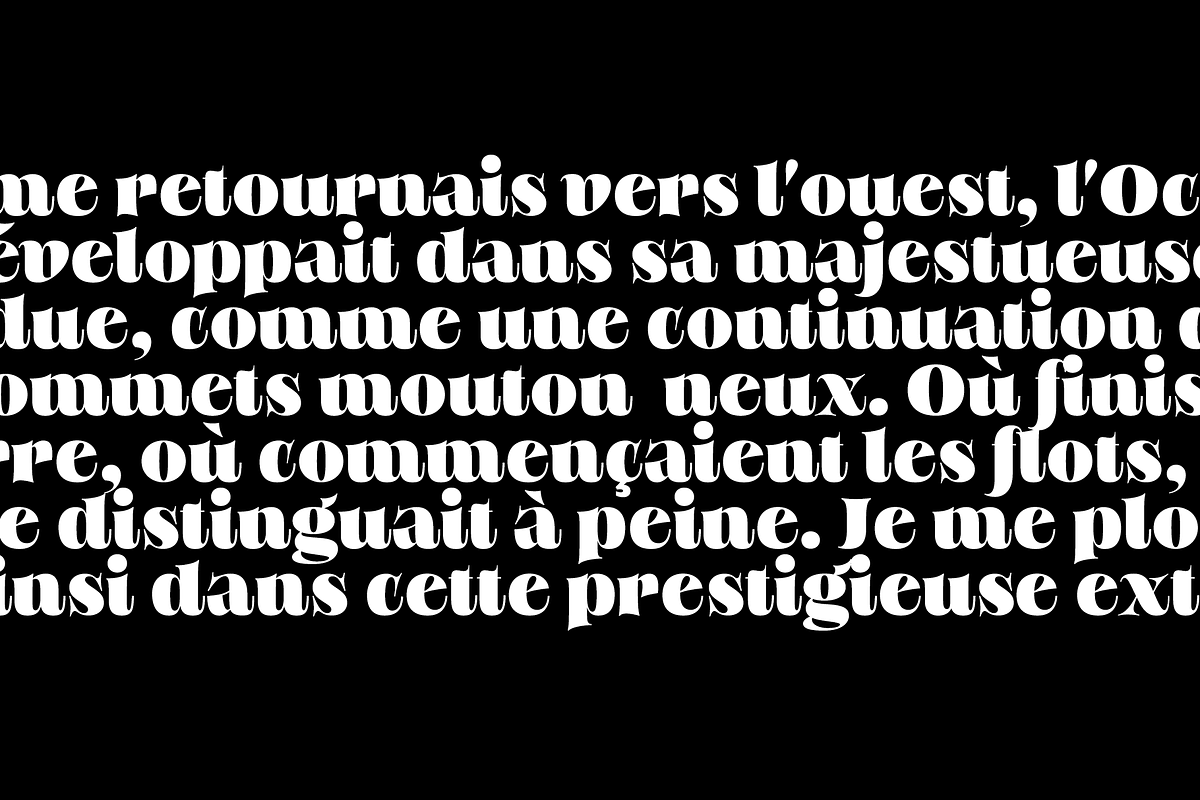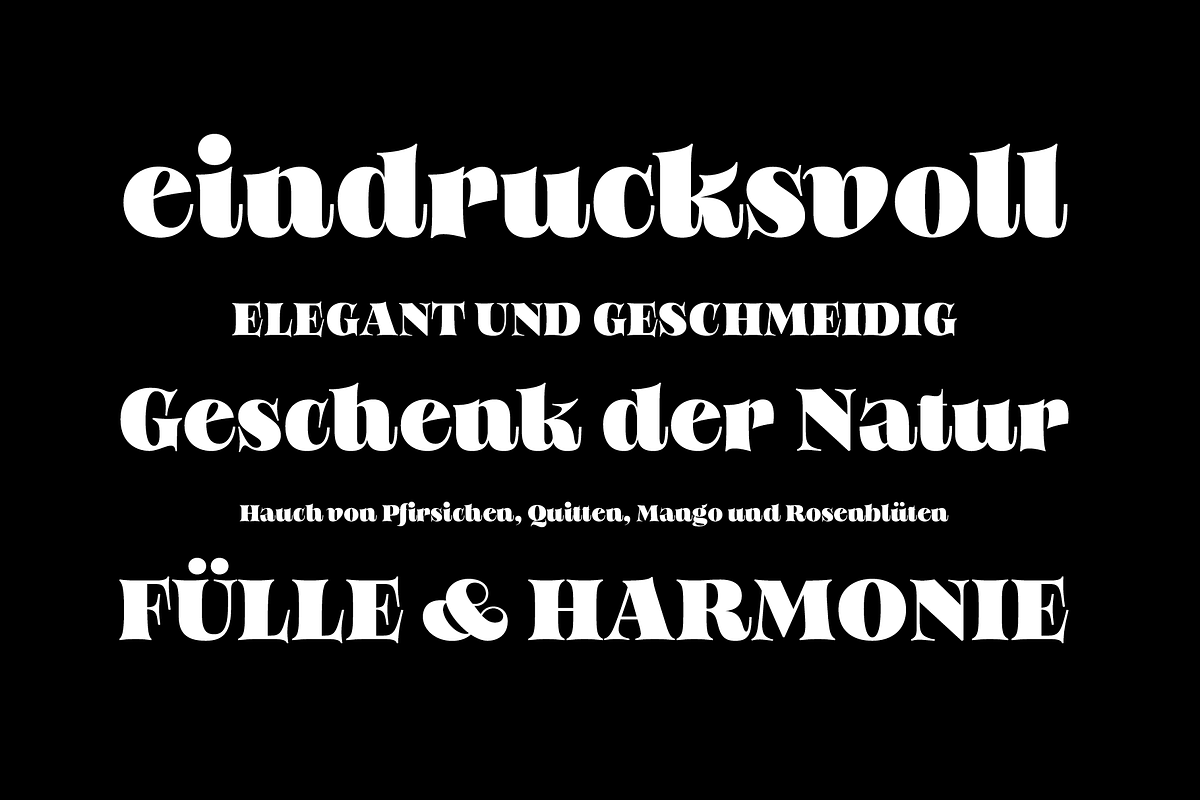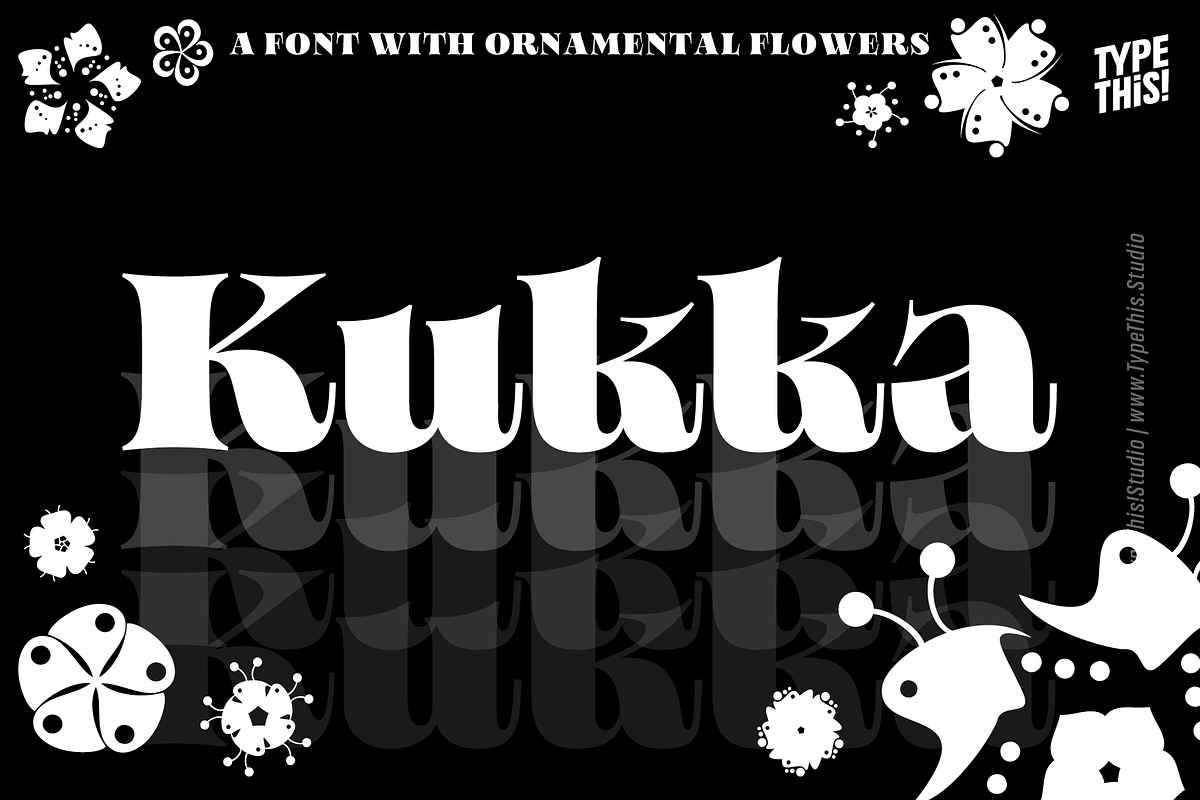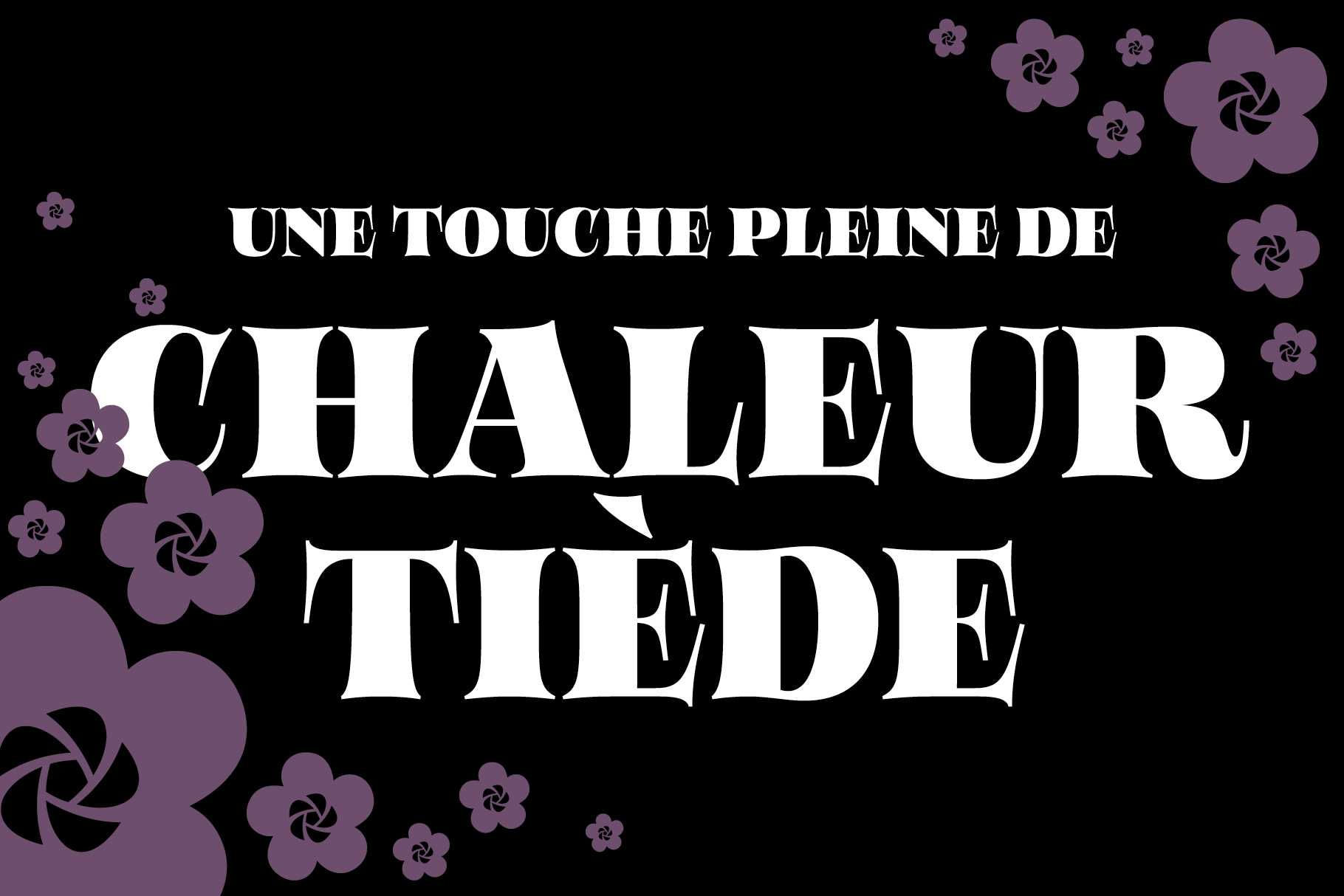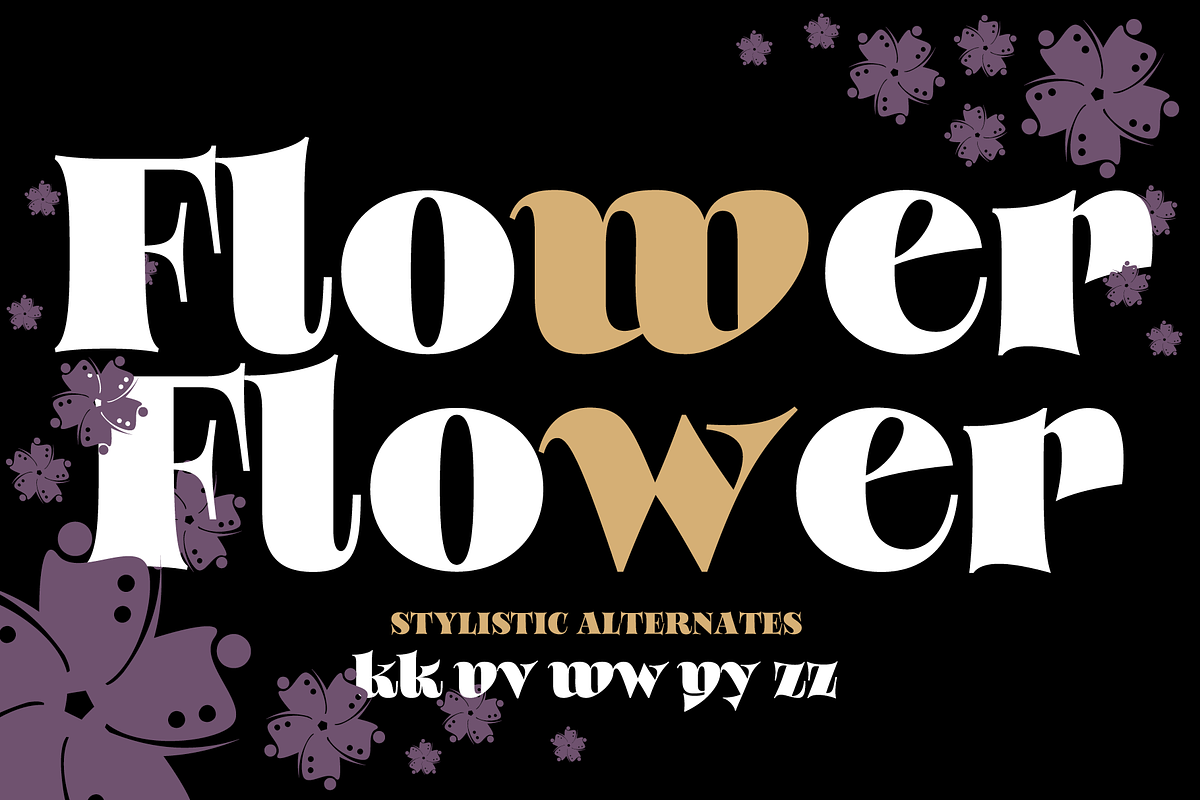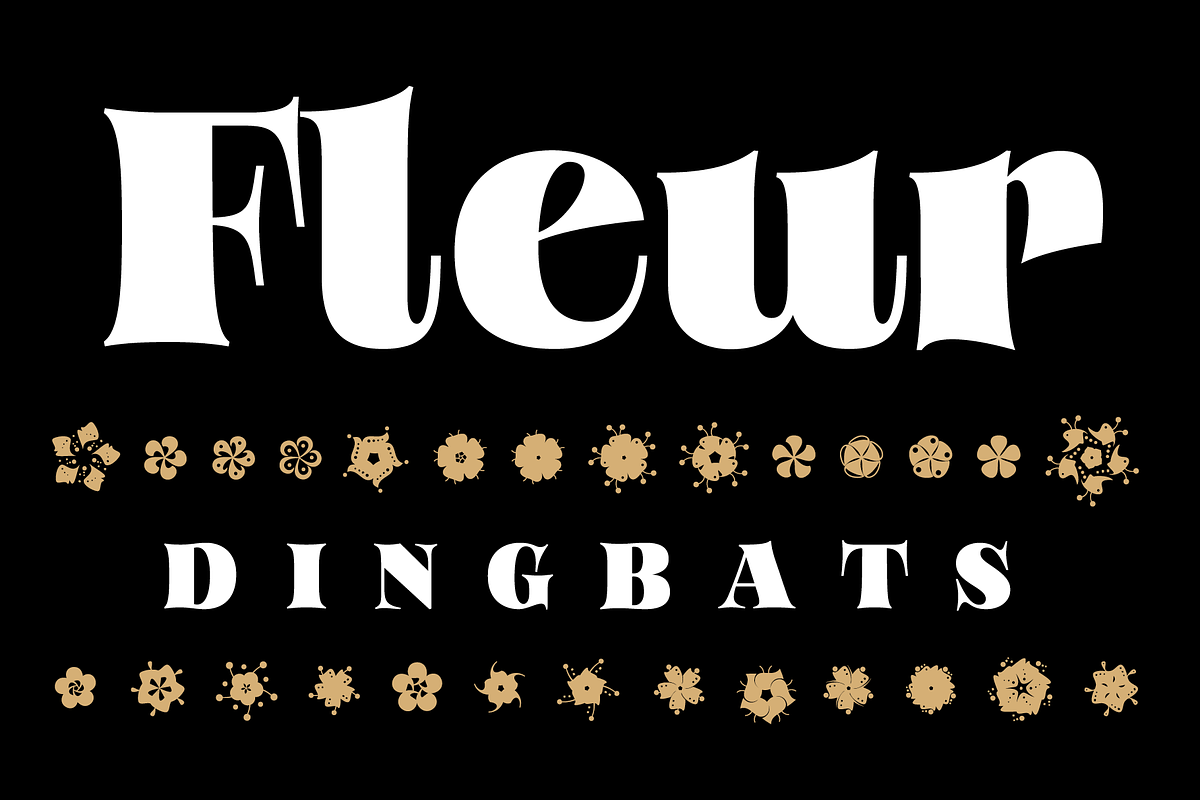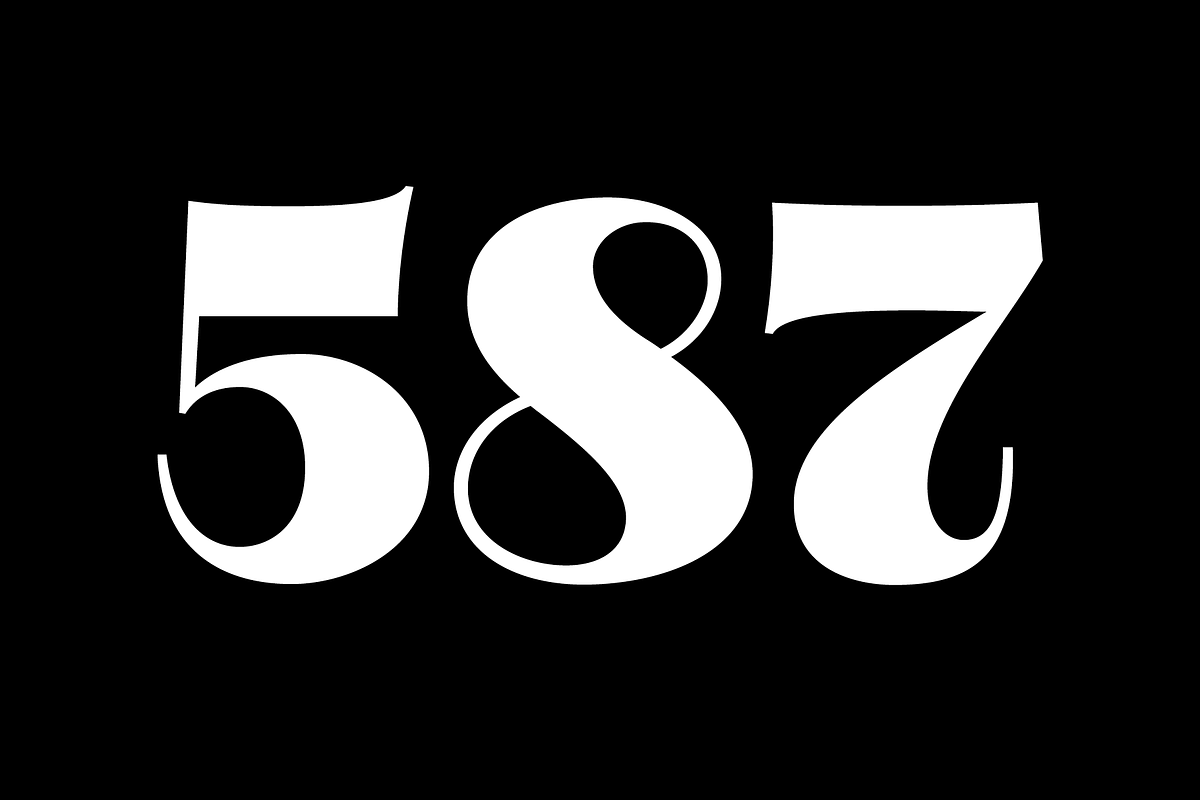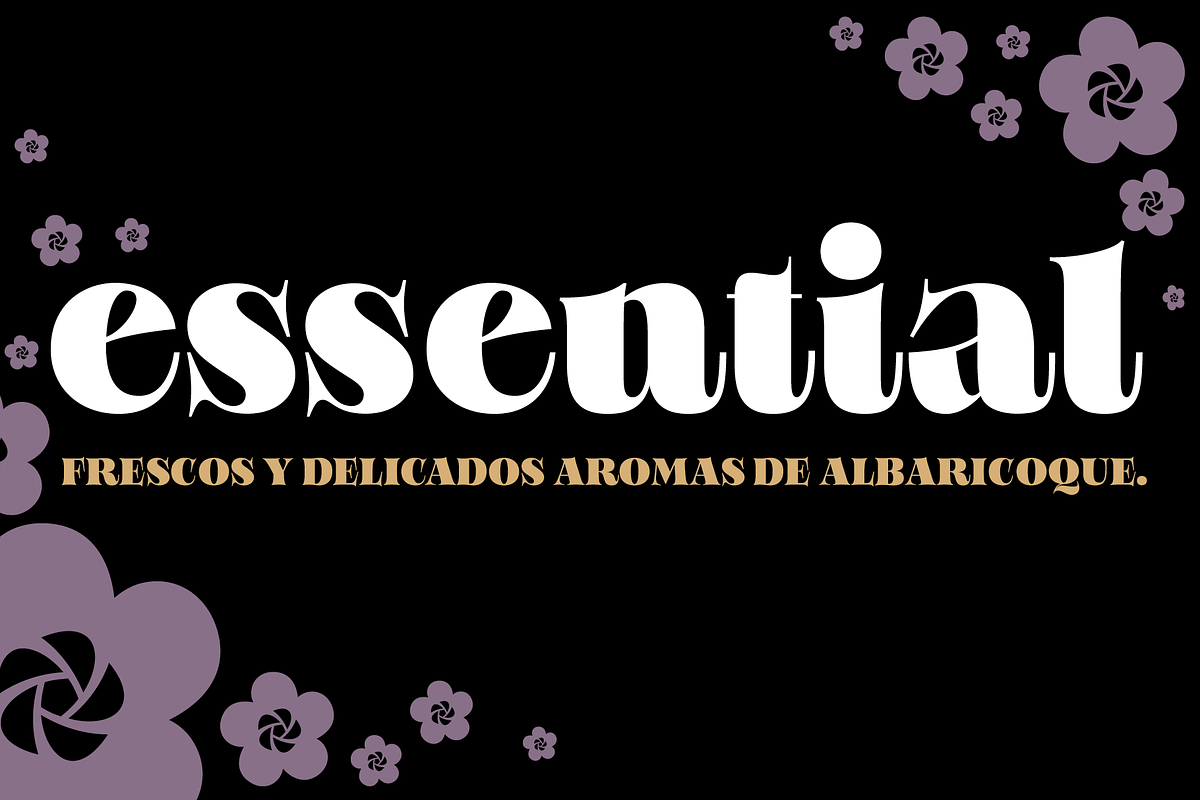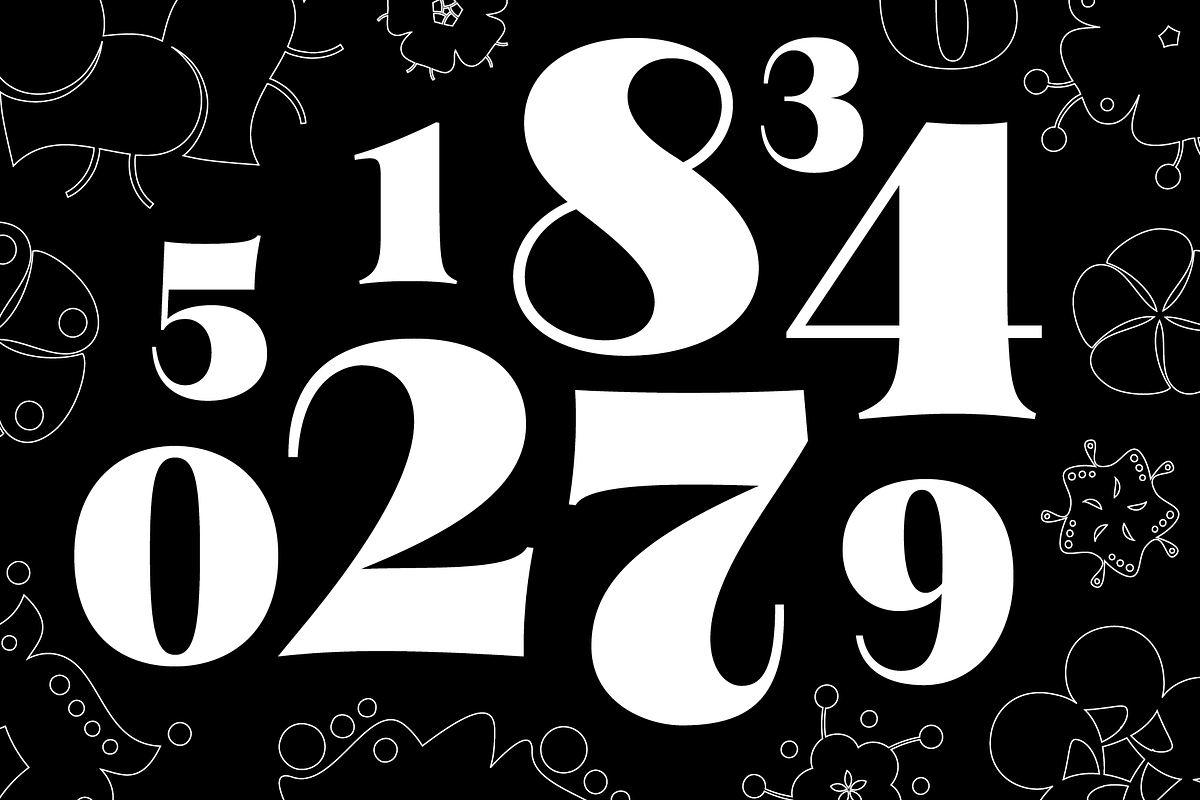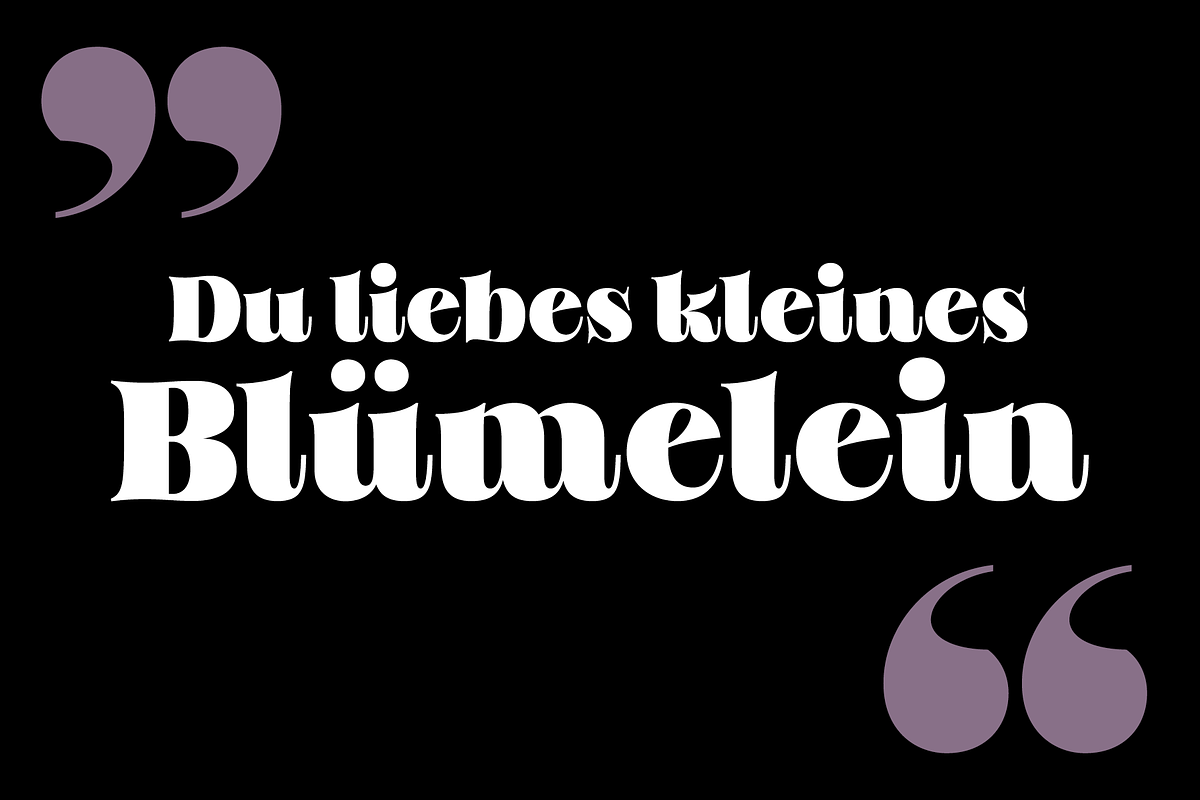
Kukka Flower Font
It's spring time! This warm-hearted display serif font combined with a set of floral symbols is perfect for your great start to the warm season. Create outstanding typography or just use these flower font symbols for ornaments and beautiful decoration. It doesn't matter: This font is real fun and feels good in every combination!
Kukka contains:
- 2 Styles: (Kukka Flower Font, Kukka Flower Dingbats)
- 406 Glyphs
- 31 Modern Flower Symbols
- Extended Currency Format
- Standart Ligatures
- Western Latin Language Support